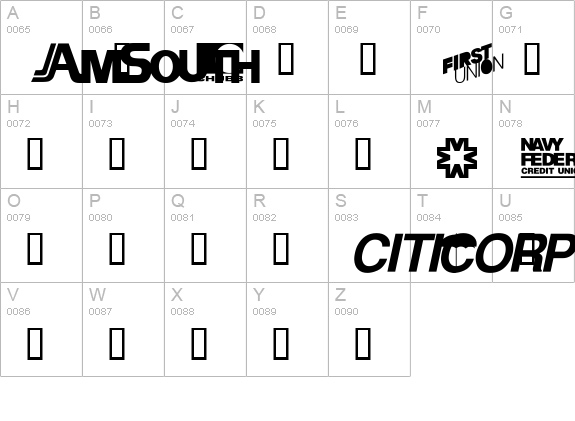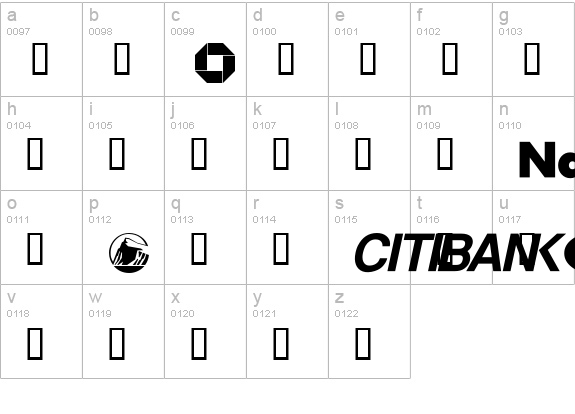
Logos Financial font is a modern and professional typeface specially designed for financial and business-related projects. With its clean lines and sharp edges, this font exudes a sense of precision and elegance, making it ideal for reports, presentations, and branding materials. Its sleek and sophisticated appearance adds a touch of sophistication to any design. What's even better is that Logos Financial font is completely free to download at FontsMarket.com! This means you can easily access this high-quality font without any cost, making it a valuable addition to your font collection. Whether you're working on a corporate project or a personal design, Logos Financial font offers versatility and style that will elevate your work to the next level. Download it now and give your projects a professional touch with this exceptional font.